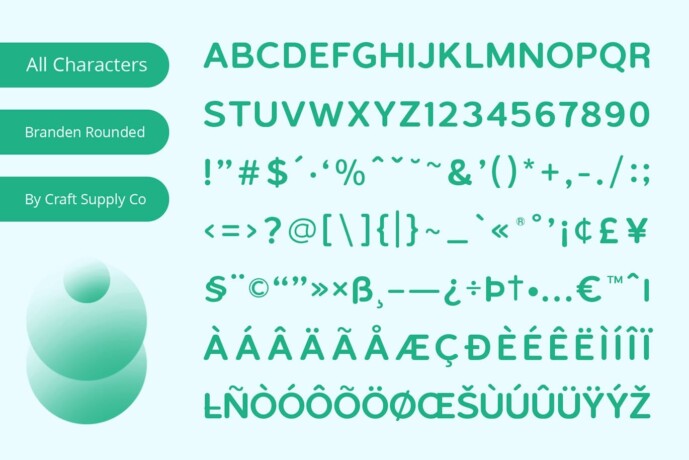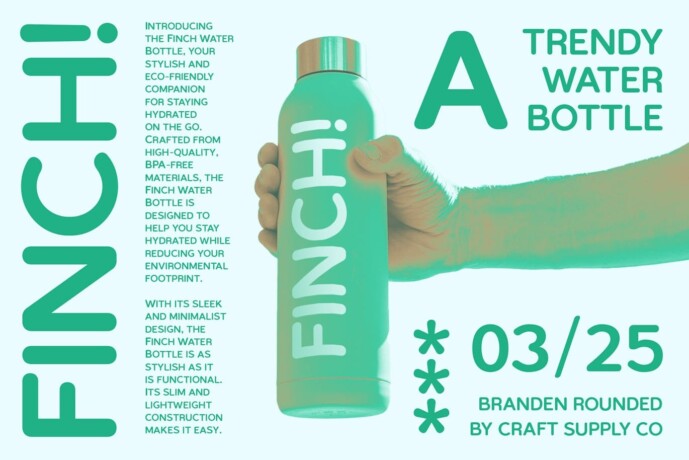
Branden Rounded Font
Branden Rounded Font: Versatile Sans Serif. Smooth Rounded Stems Branden Rounded features rounded stems, adding a touch of softness and elegance to its sans serif design.
Perfect for casual and formal display Versatile in its application, this font is suitable for both casual and formal display needs. Its balanced aesthetic makes it suitable for different contexts.
Ideal for many projects Whether you’re creating a casual poster or a formal invitation, this font offers flexibility and adaptability for a wide range of projects.
A perfect blend of style and functionality With its rounded stems and versatile design, this font perfectly combines style and functionality, ensuring your message is conveyed effectively in any display environment.
Balancing Elegance and Versatility This font stands out for its sans serif versatility, characterized by its rounded, smooth stems and its adaptability for both casual and formal display purposes. Enjoy the blend of elegance and versatility offered by this font and easily enhance your design projects